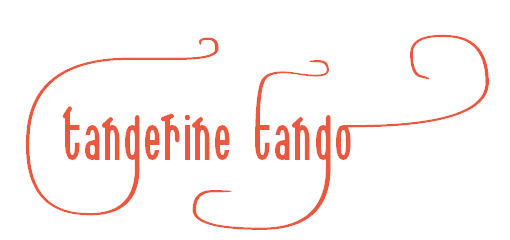
The colour is called Tangerine Tango.
I am using the Serif PagePlus X4 desktop publishing program and the Sonnet Calligraphic 035 font, in a similar manner to the way that I used the Serif PagePlus X3 desktop publishing program and the Sonnet Calligraphic 029 font for the feature about the Pantone Colour of the Year for 2011.
I find it interesting that the design of the graphics that can be produced using the Sonnet Calligraphic 035 font is greatly influenced by the particular letters that are used to spell the name of the colour.
For example, had the chosen colour had a name that ended in a lowercase e, then I could have used a calligraphic e at the send of the name. In the event, the name ends in a lowercase o, and the Sonnet Calligraphic font has no calligraphic o. I am wondering if it is possible to have a calligraphic o that looks reasonable.
As it happens, the two letters g in the name of the colour allow for use of calligraphic sorts and the Sonnet Calligraphic 035 font has several from which to choose.
Here are two designs that I have produced.